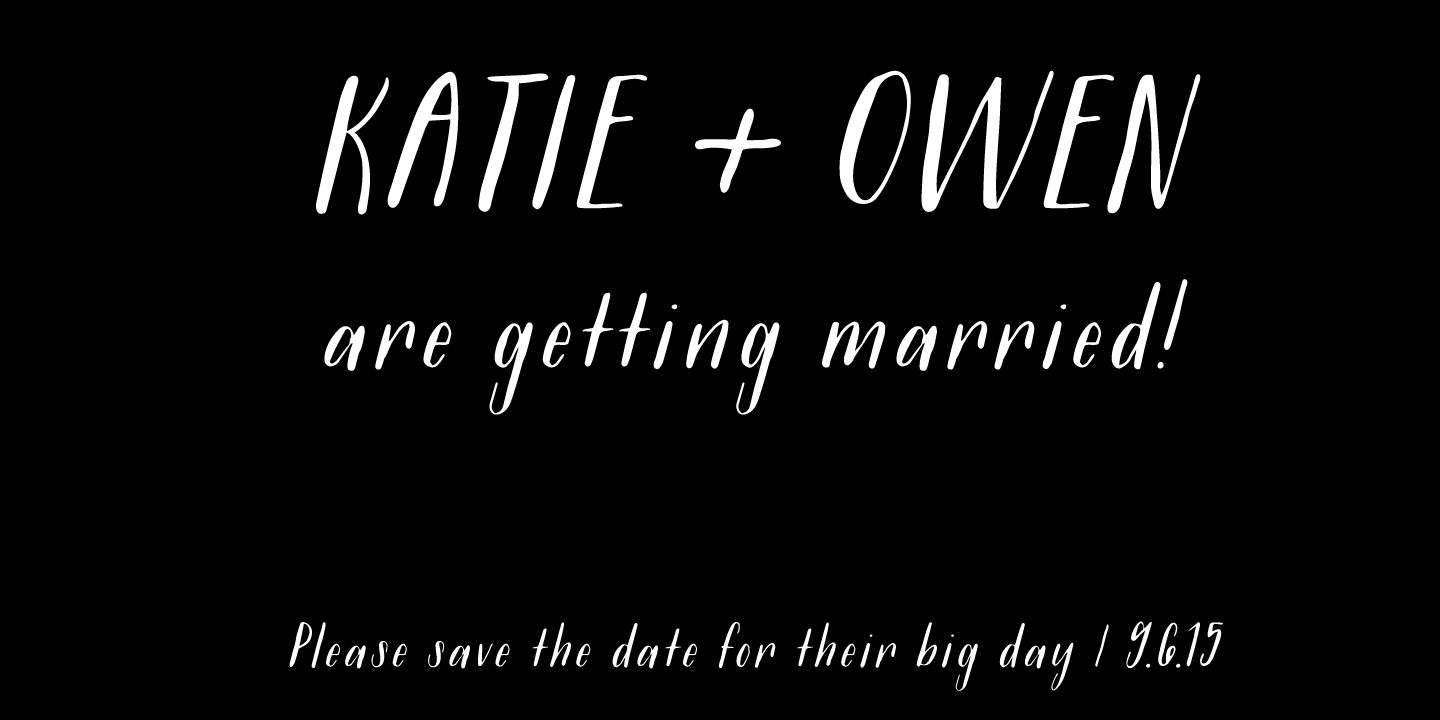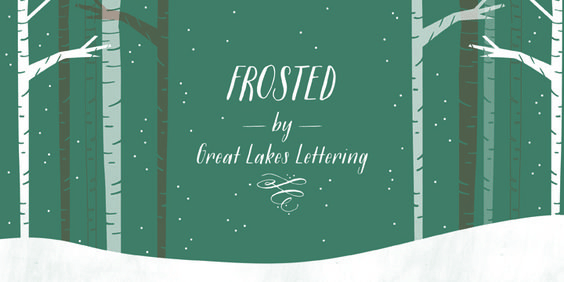
Frosted
Frosted is a font based on a naive, illustrated handwriting that can be used on a daily basis. It is a delicate, handwritten front with a somewhat masculine feel which mimics the natural stroke of pointed pen calligraphy. Paired with structured flourishes…